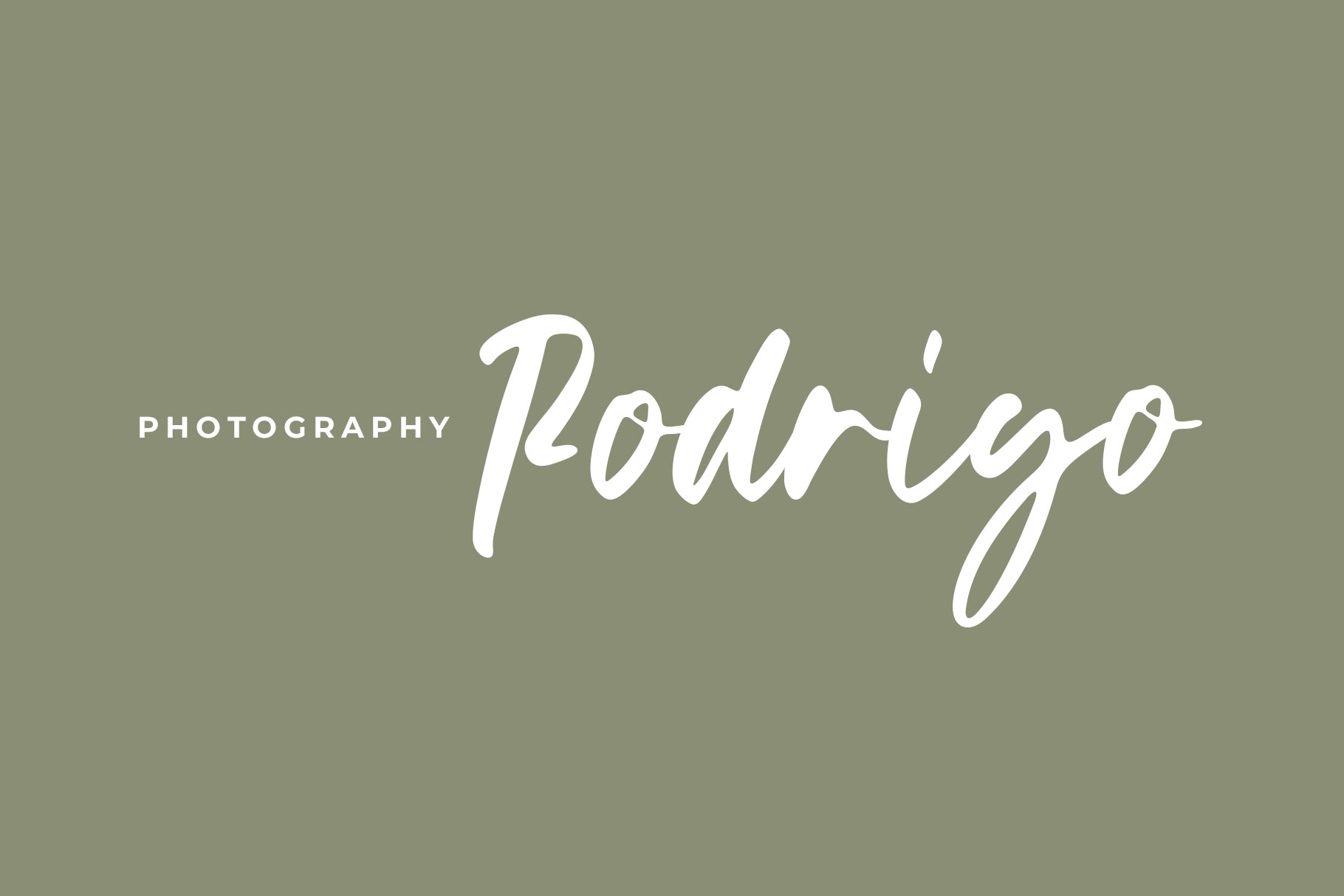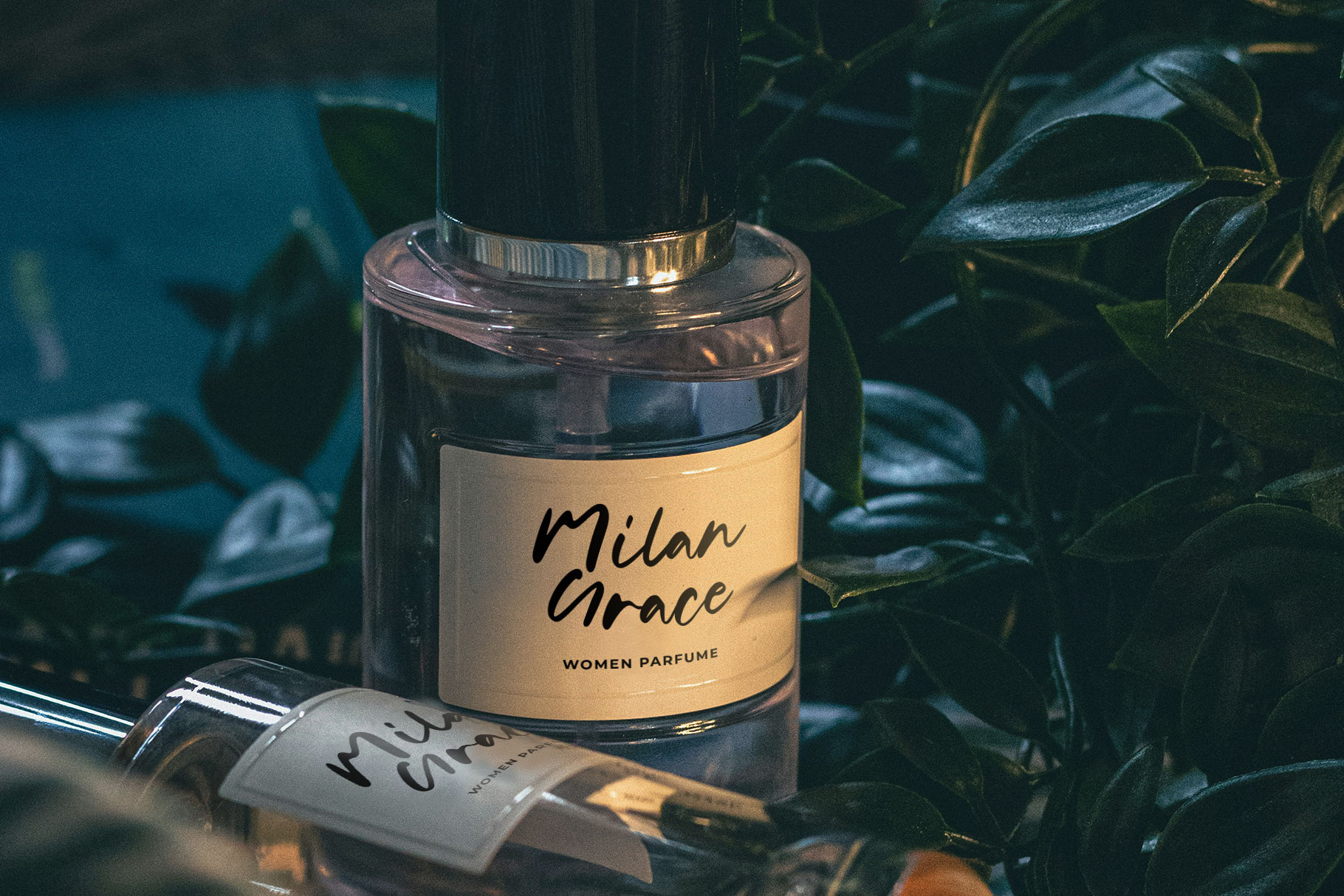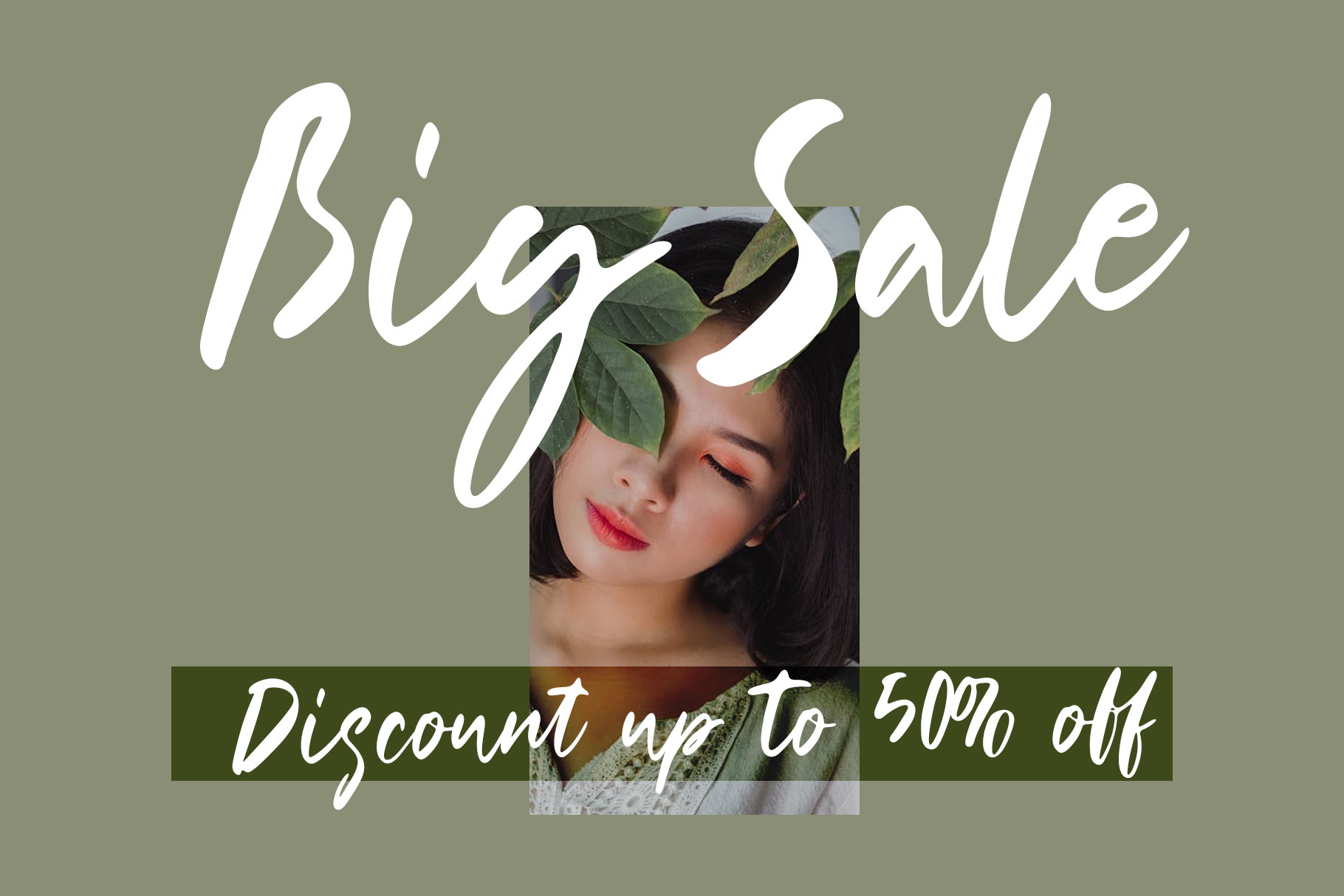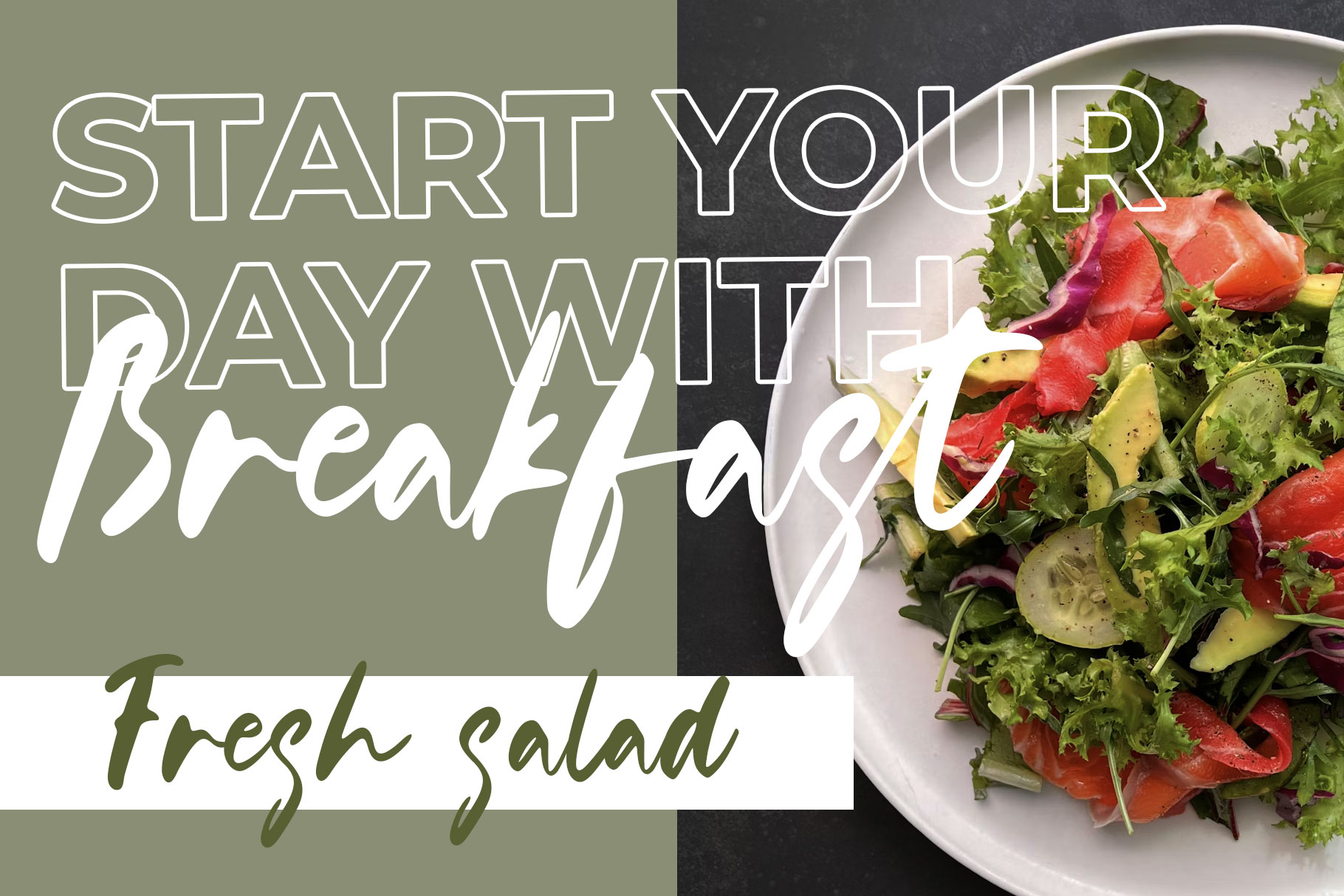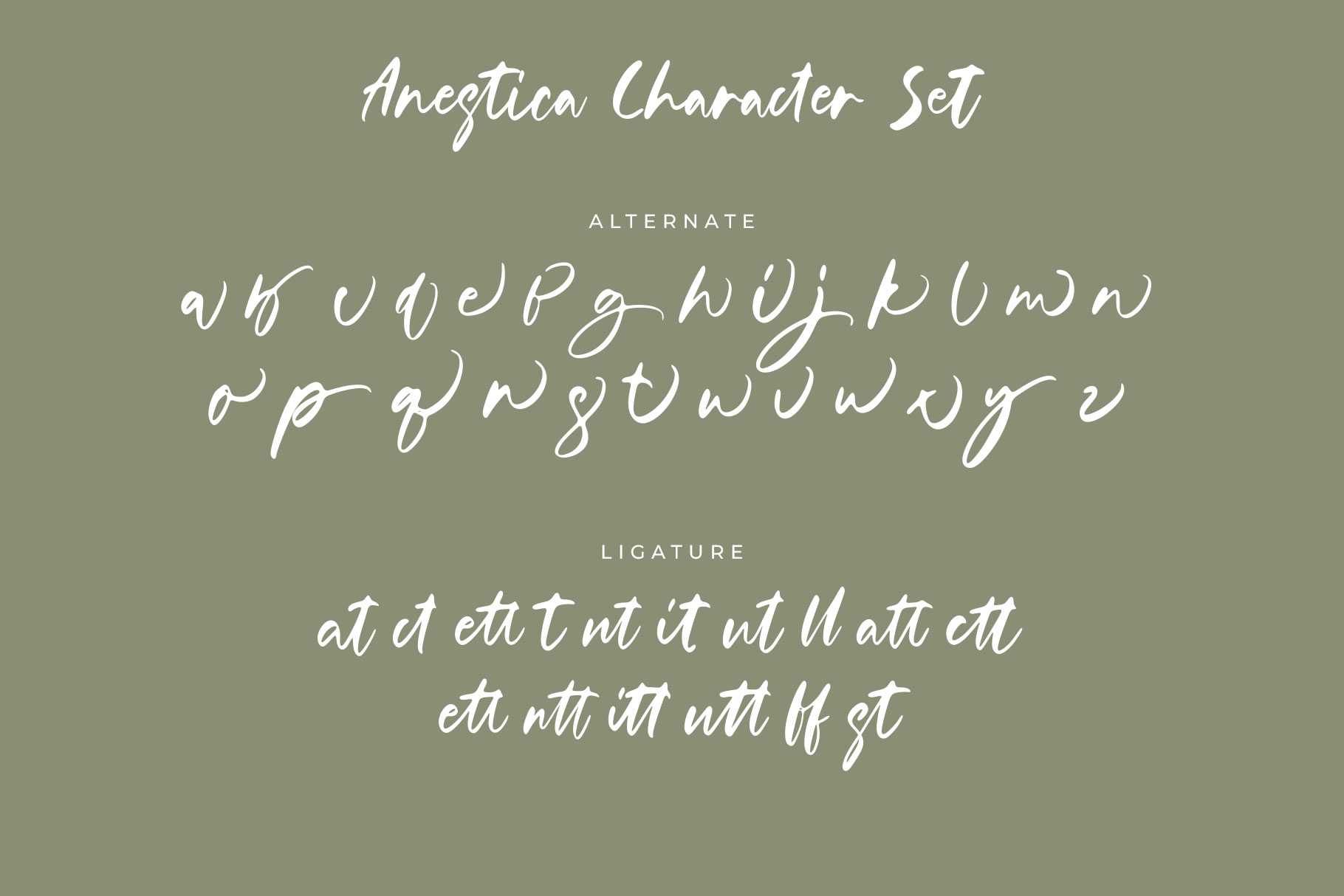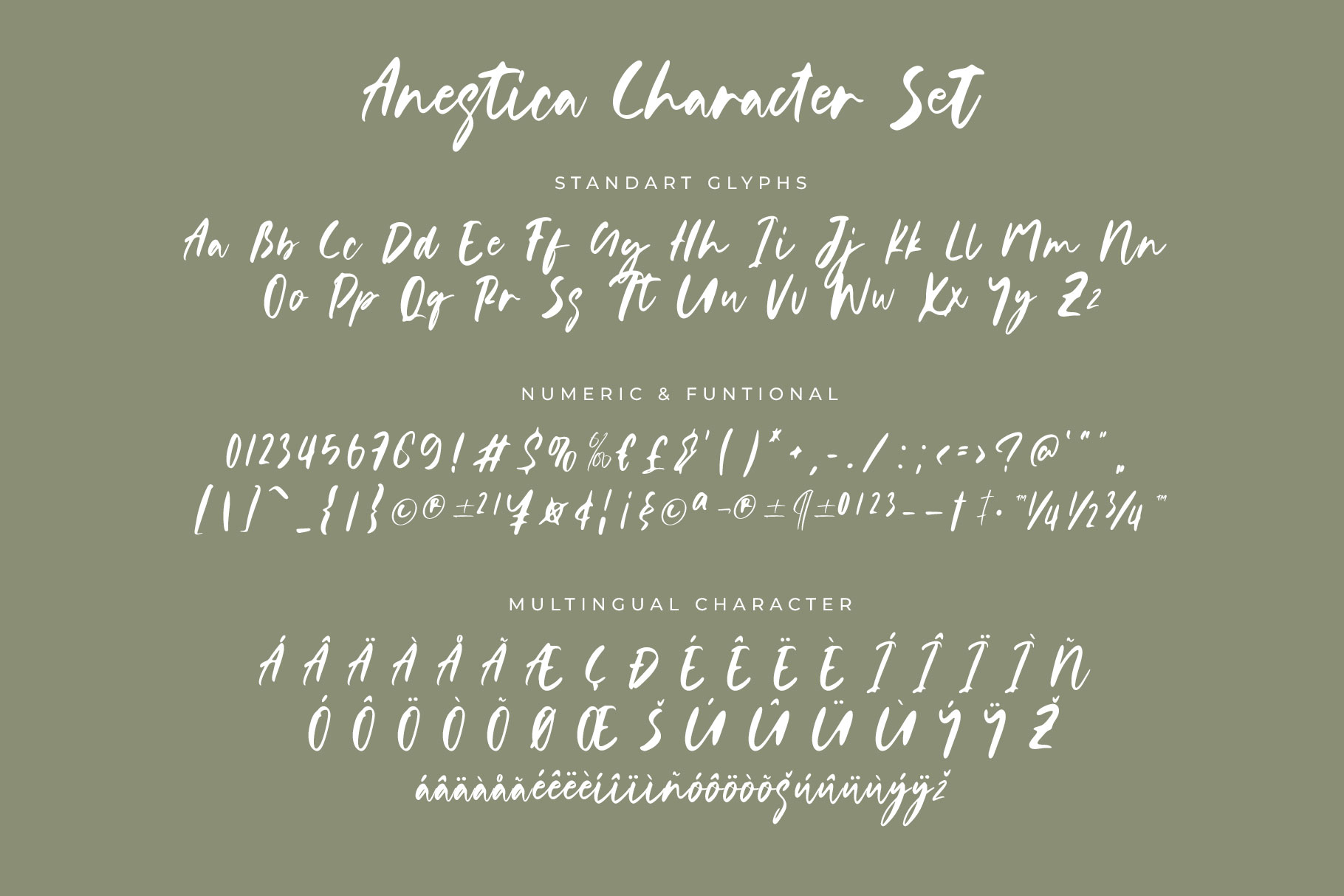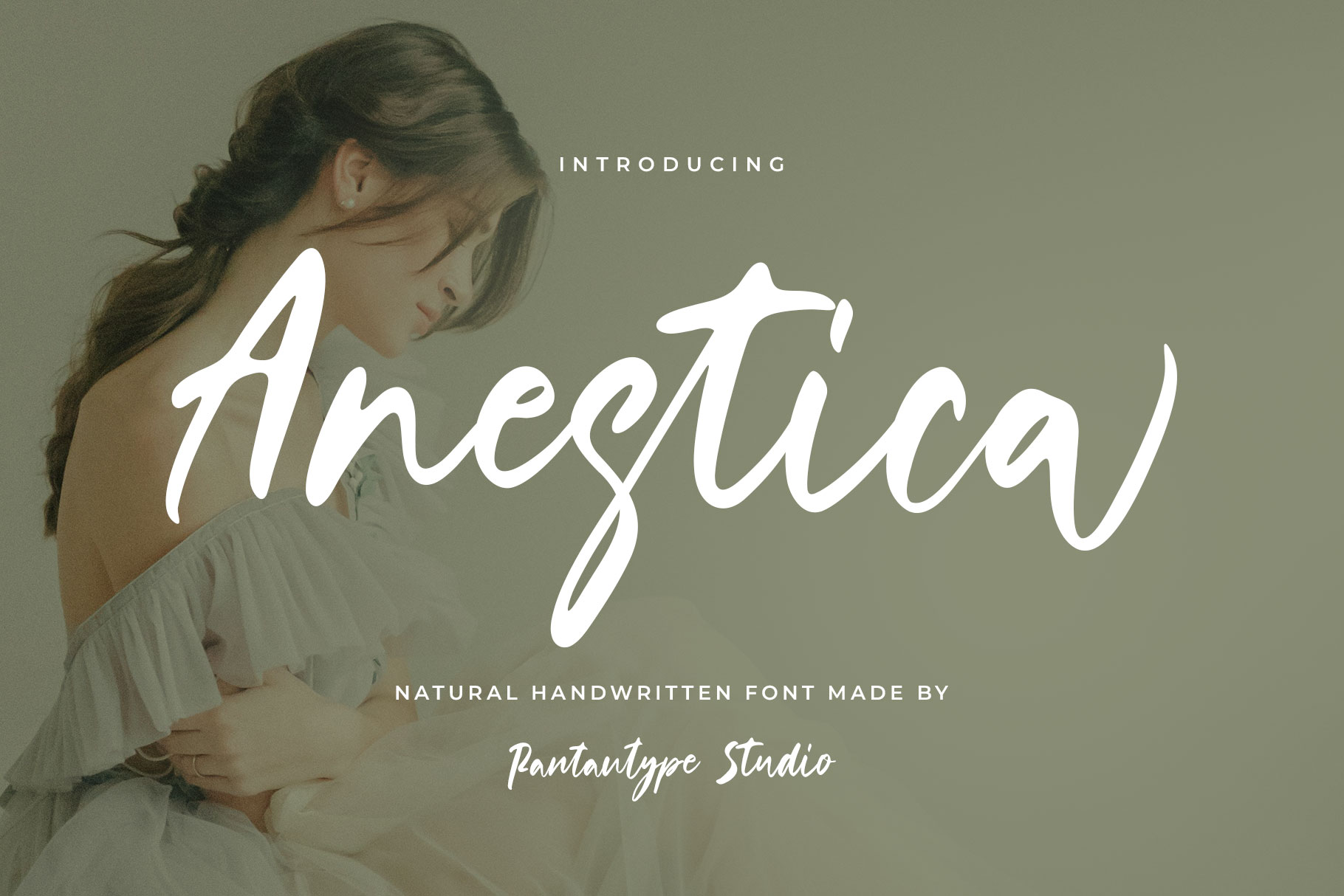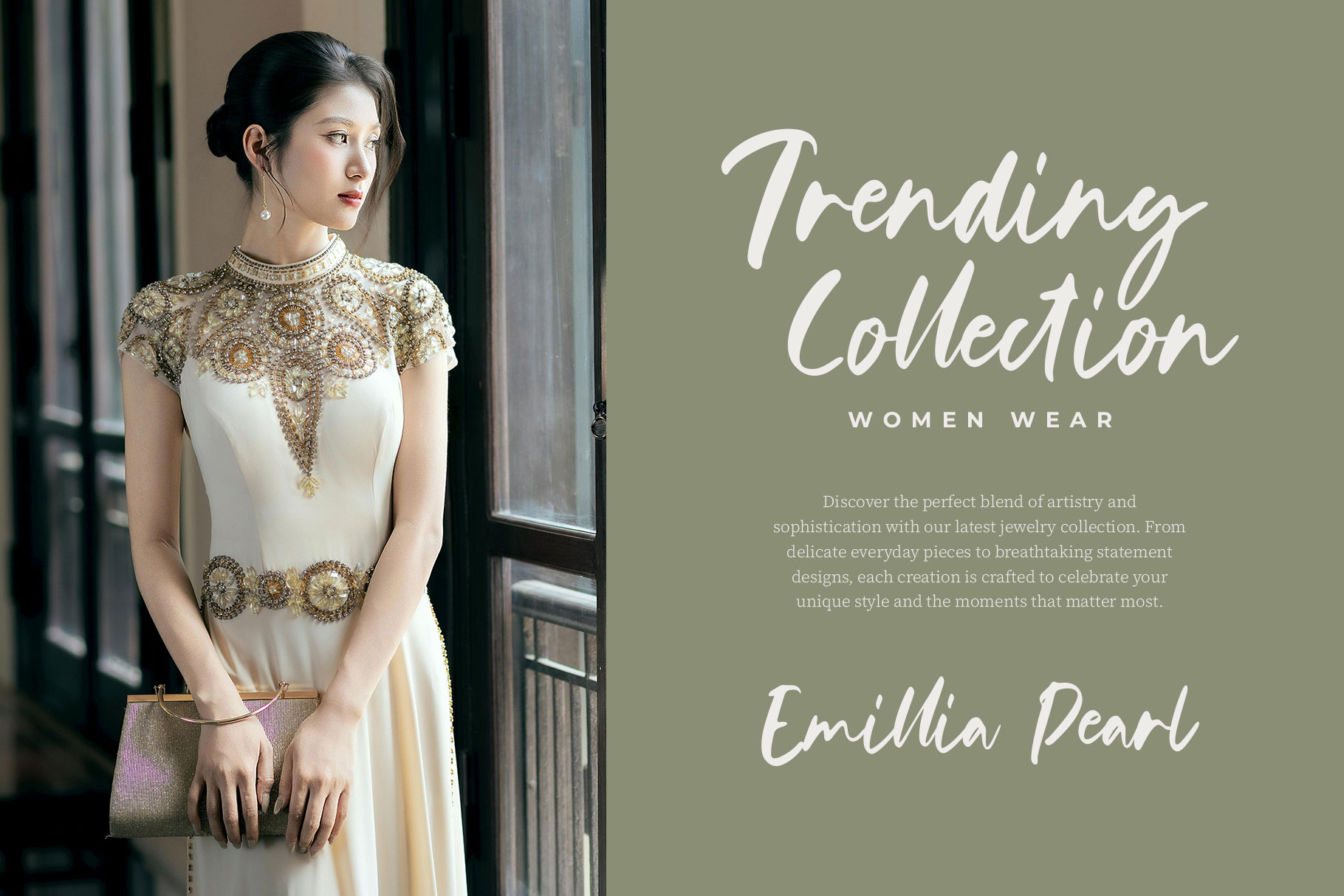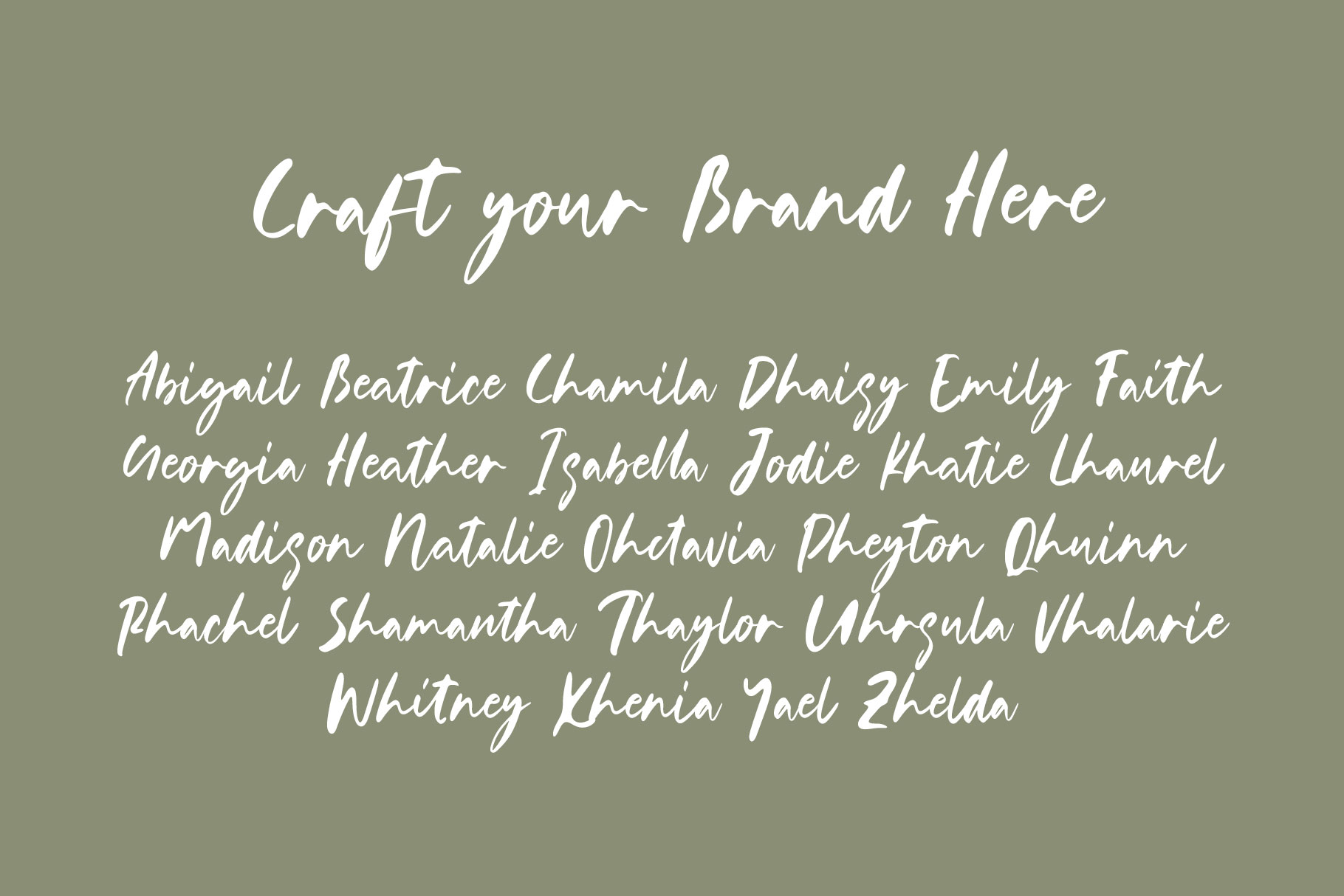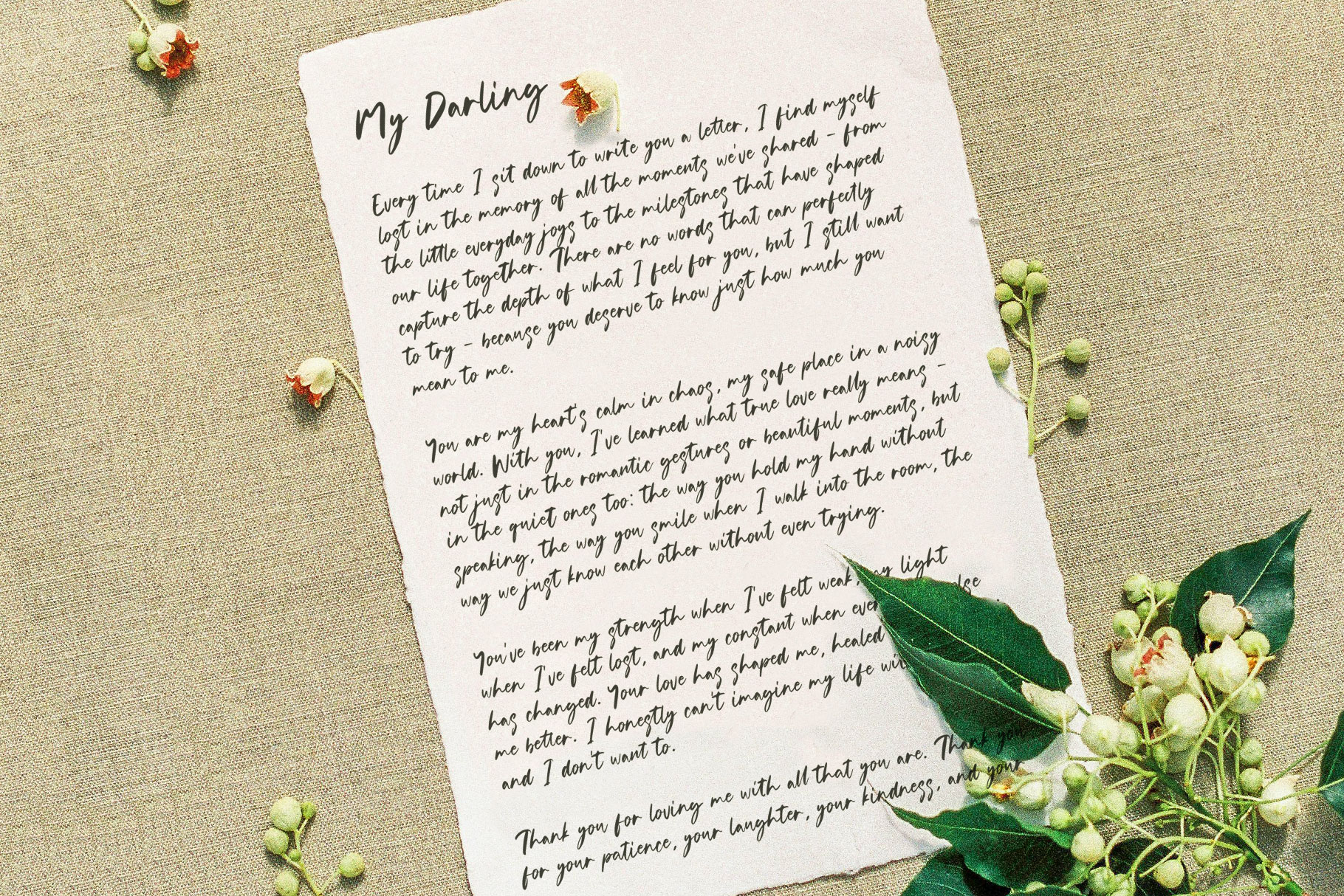
Anestica Natural Handwritten Font
Anestica is natural handwritten font embodies the warmth and authenticity of personal handwriting, Anestica come with smooth strokes, organic curves, and subtle imperfections, it evokes a sense of sincerity and creativity.
Anestica is a perfectly choice for any creative endeavor, creating, modern, chic, lifestyle design such as logotype, title, cover, branding, invitations, wedding designs, display and magazine, social media posts, advertisements, printed quotes, product packaging, corporate brand, product designs, labels, photography, watermarks, special events and any other project with modern touch.